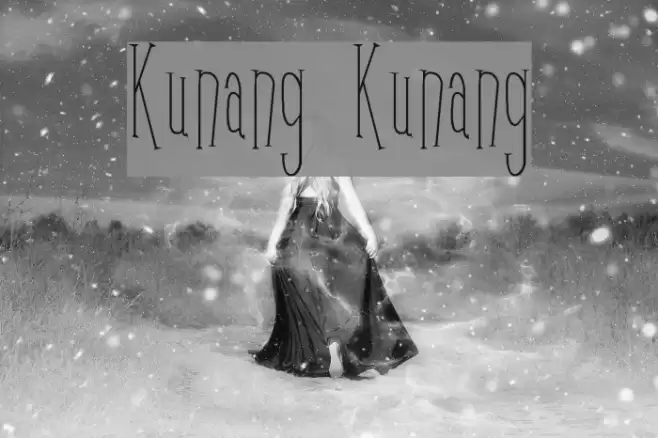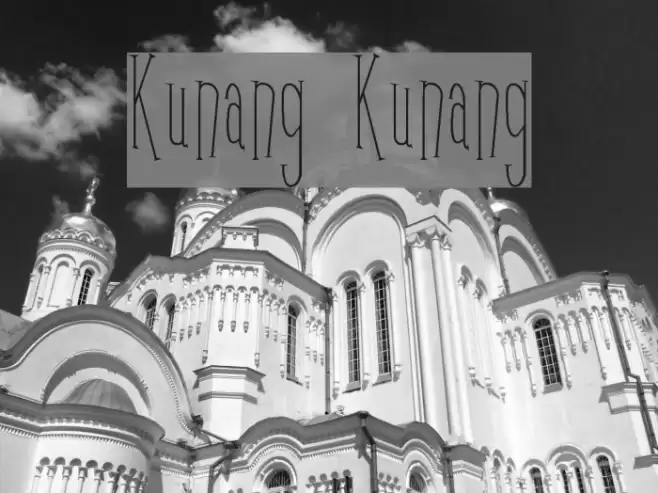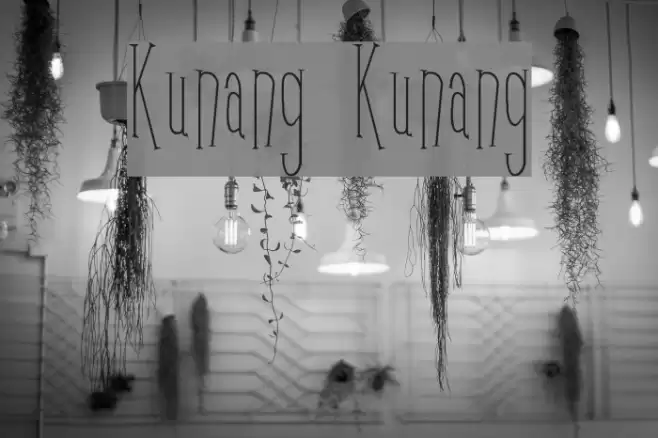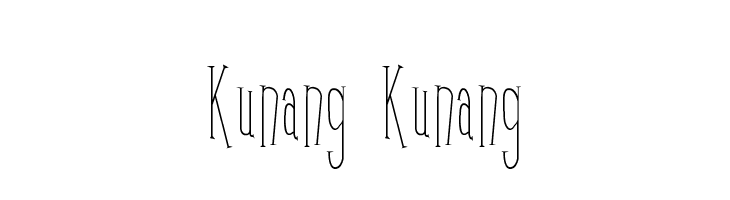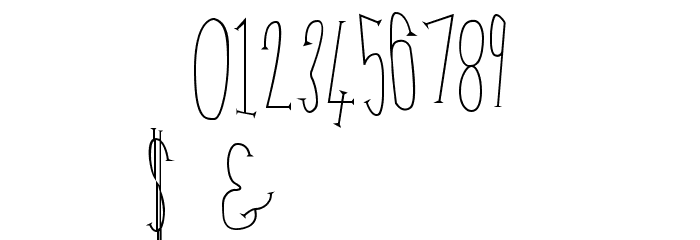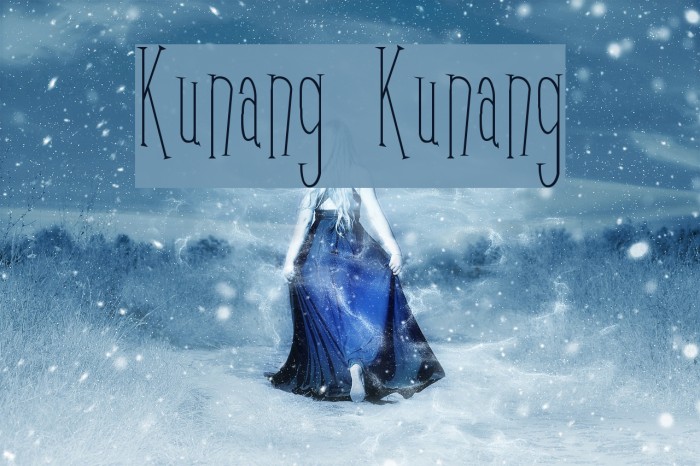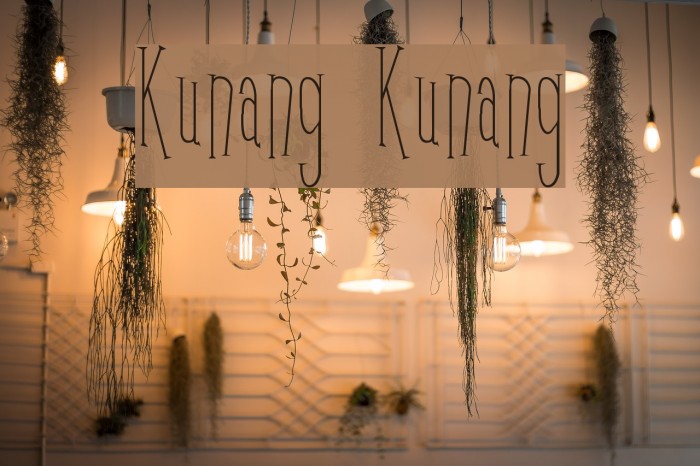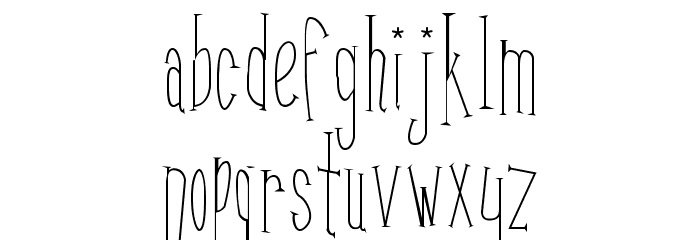
Kunang Kunang Font
Kunang Kunang Description
This font features a whimsical and playful design with tall, narrow characters that have a hand-drawn quality. The letters are slightly irregular, adding to the charm and uniqueness of the style. The uppercase letters are particularly elongated, while the lowercase letters maintain a consistent height. The numbers and special characters follow the same quirky aesthetic, making the font suitable for creative and artistic projects. The overall appearance is light and airy, with a sense of movement and fluidity in the strokes.
A whimsical, hand-drawn font with tall, narrow characters and a playful style from Cartoon fonts.